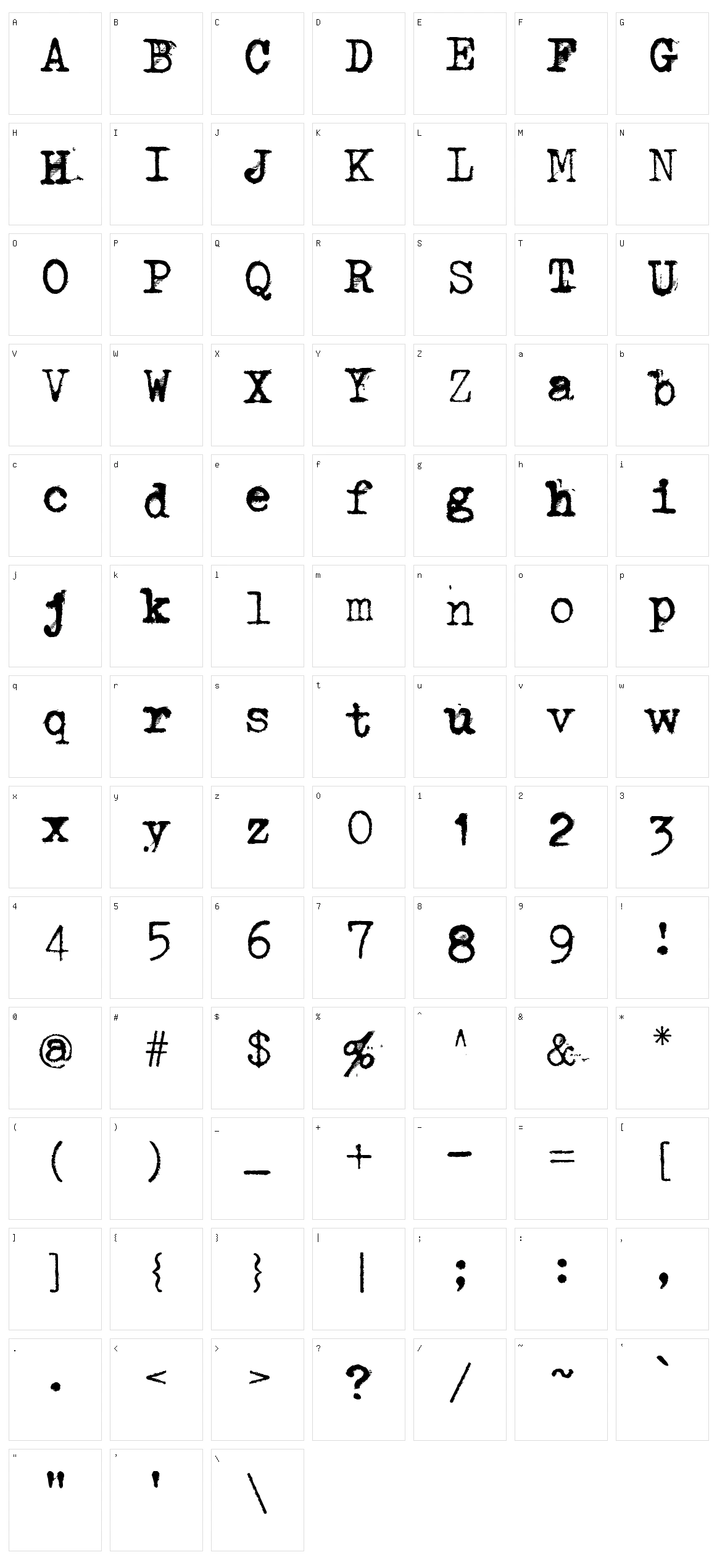
The free font Through the night is carefully designed by junkohanhero, showcasing a thoughtful balance of creativity and usability and falls under the Typewriter font style. When you download the ZIP file, it contains only 345.98 KB of font files, making it lightweight and quick to download. Please review the license details below to understand permitted usage and distribution rights. If license information is not available, we recommend using this font for personal projects only or contacting the author directly for commercial usage permissions.